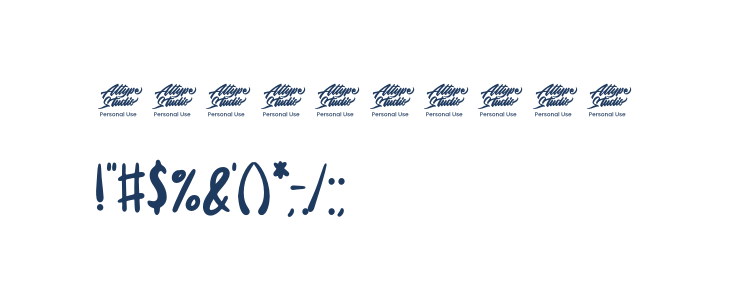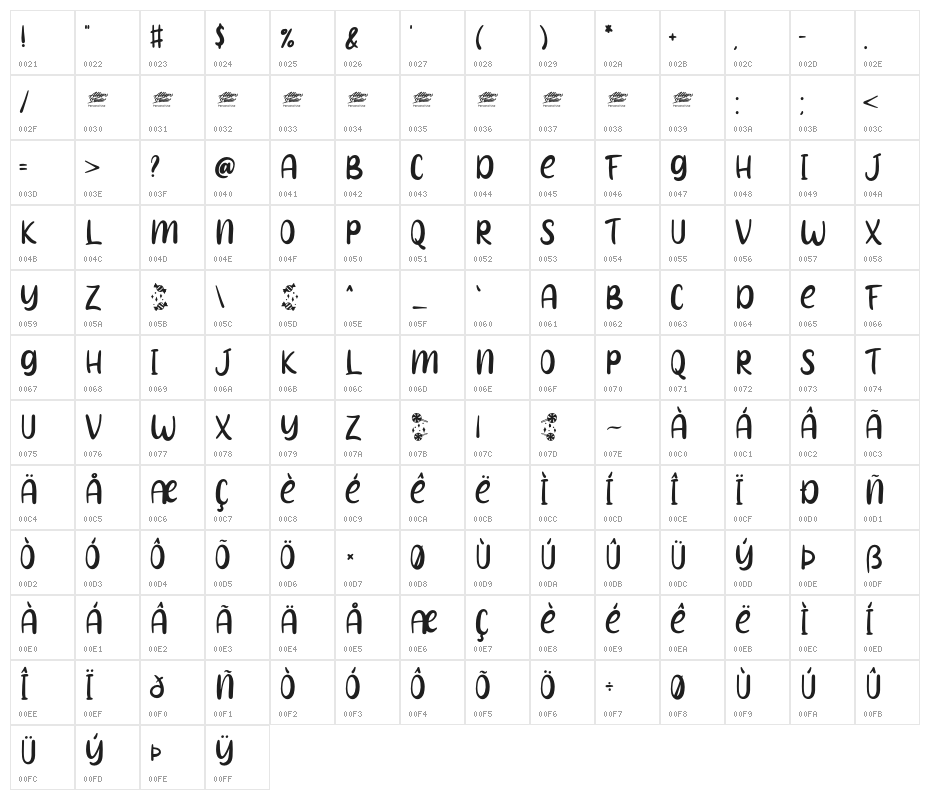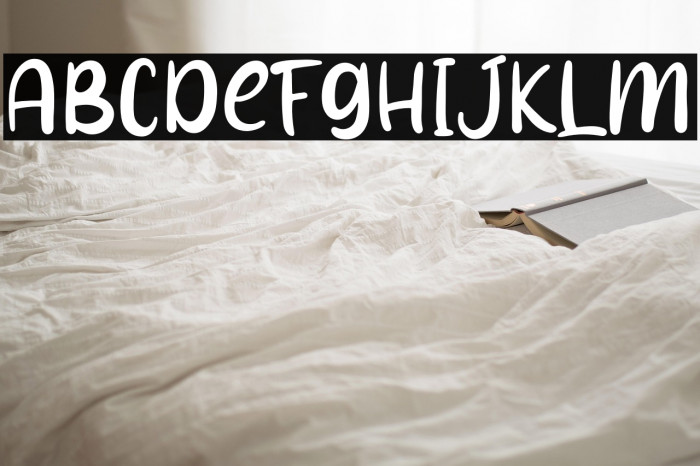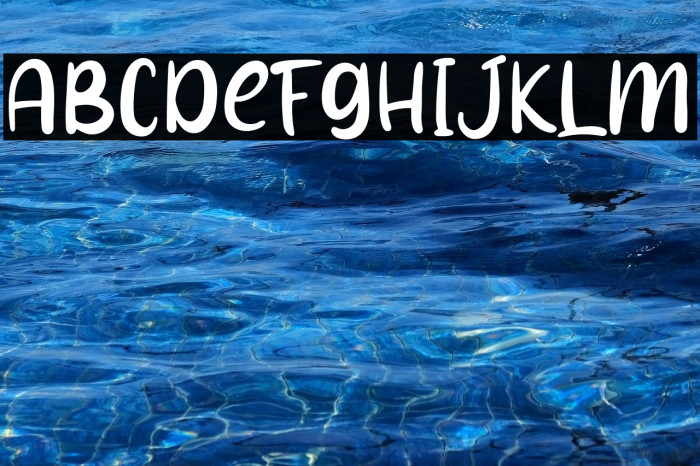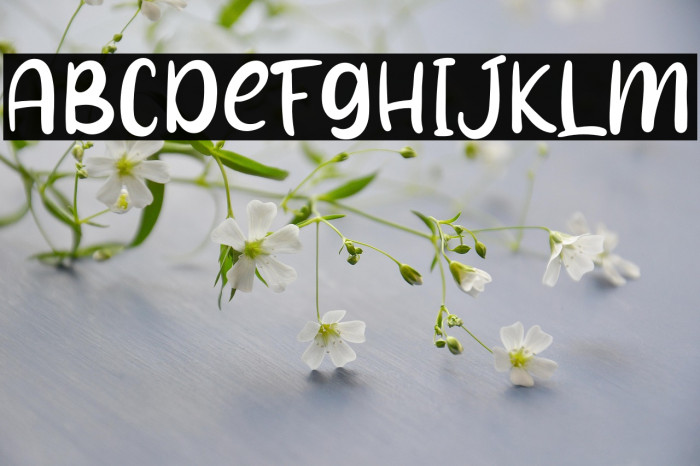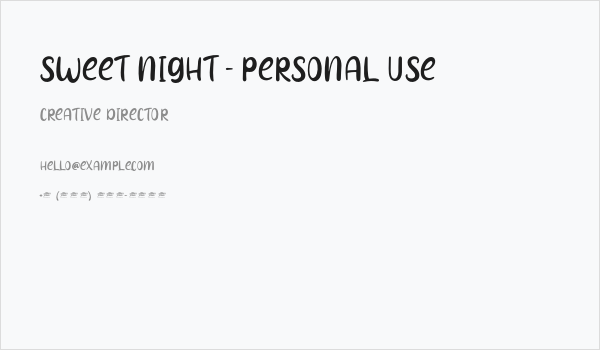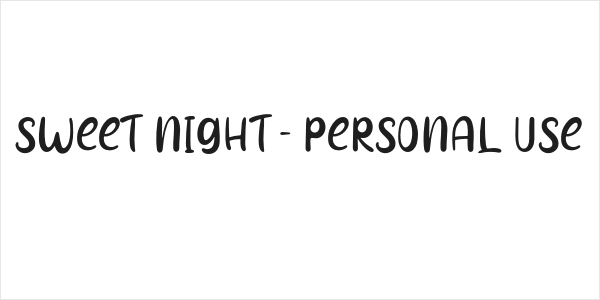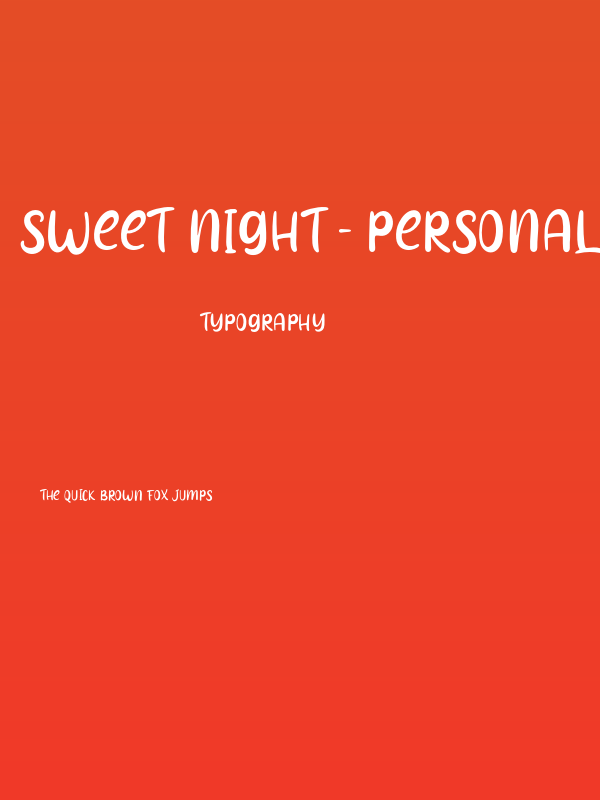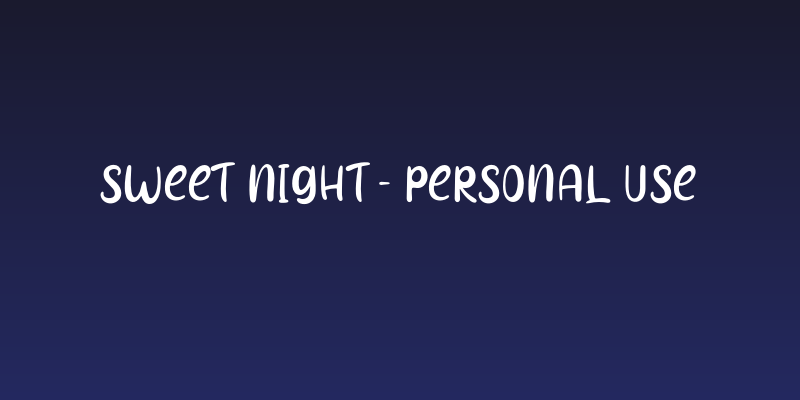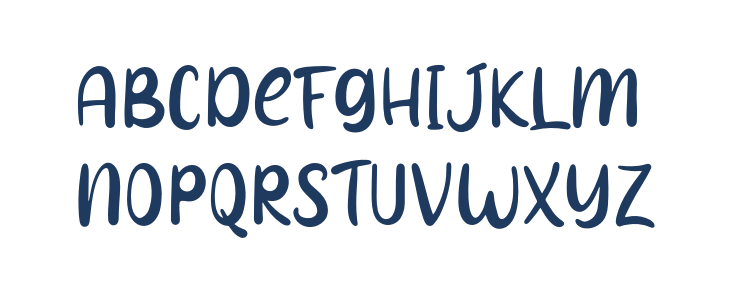
Sweet Night - Personal Use Font
Sweet Night - Personal Use Description
This font features a playful and casual handwritten style, characterized by its smooth, flowing curves and slightly irregular letterforms. The uppercase and lowercase letters maintain a consistent style, with rounded edges and a friendly appearance. The strokes are moderately thick, providing a bold presence without being overwhelming. The font includes a full set of uppercase and lowercase letters, numbers, and a variety of special characters, making it versatile for different uses. Its informal and approachable style makes it suitable for projects that aim to convey warmth and friendliness.
| Use Case | Logos, Headlines, Informal Text |
| Proposed Projects | Ideal for greeting cards, invitations, personal branding, and social media graphics. |